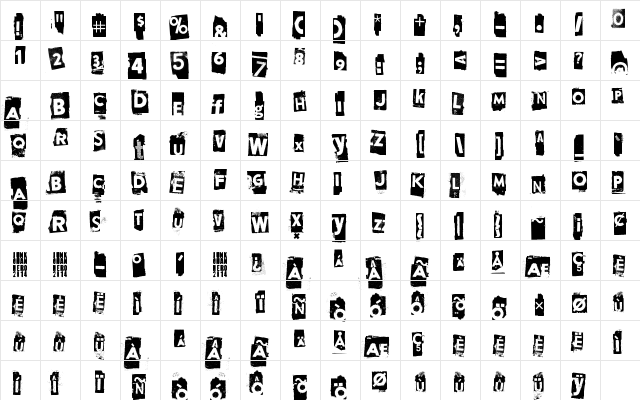
Appendix Regular
| Designer | junkohanhero |
Design Context for Appendix Typeface
Appendix is a composed and adaptable typeface that performs quietly and consistently across a wide range of design contexts.